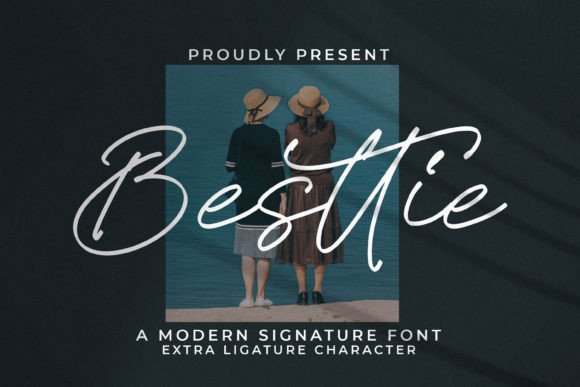
The Ultimate Guide to Besttie Font: Elevate Your Design Game
What is Besttie Font?
Besttie Font is a stunning handwritten font designed for creative projects that require a touch of luxury. Its elegant and modern style makes it perfect for logos, branding projects, homeware designs, product packaging, and more. With its PUA encoding, you can easily access all the glyphs and swashes, giving you endless possibilities for customization.
My Honest Review of Besttie Font
Here’s what I love about Besttie Font:
- ✨ Elegant and sophisticated design
- 💫 Perfect for luxury projects, such as high-end branding and packaging
- 🎨 Highly versatile and can be used for a wide range of design applications
While Besttie Font is an amazing font, there are a few quirks to be aware of:
- 🤔 Some users may find the font a bit too ornate for certain projects
- ⚠️ May not be suitable for body text due to its elegant, yet decorative nature
The Story Behind Besttie Font
Besttie Font was designed by a talented type designer who’s passionate about creating beautiful, functional fonts. Inspired by the elegance of handwritten scripts, Besttie Font was crafted to bring a touch of luxury to any design project. With its modern twist and classic feel, Besttie Font is sure to become a favorite among designers and crafters alike.
| What is PUA encoding? | PUA (Private Use Area) encoding allows font designers to include additional glyphs and characters that aren’t part of the standard Unicode character set. This means you can access a wider range of characters and swashes with Besttie Font. |
| Is Besttie Font suitable for body text? | While Besttie Font is an amazing font, it’s not ideal for body text due to its elegant, yet decorative nature. It’s best used for headlines, titles, and other design elements that require a touch of luxury. |